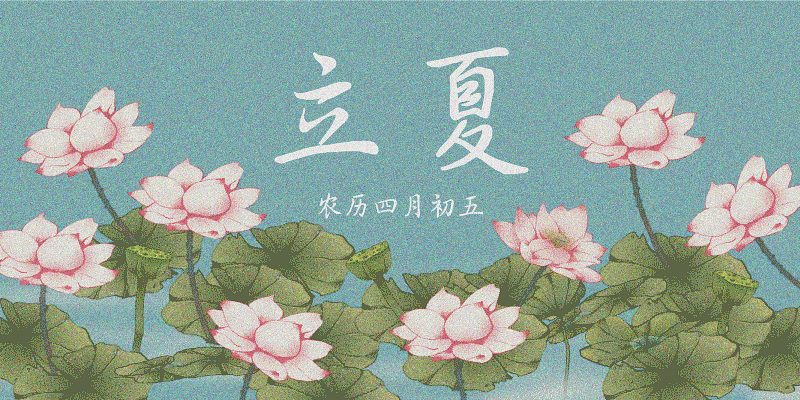
Hellofont ID Zhong Ling Xing Kai Font Free Download
HelloFont ID Zhong Ling Xing Kai Font Free Download
HelloFont ID Zhong Ling Xing Kai Font Free Download is a beautiful Chinese-inspired typeface that combines the elegance of traditional calligraphy with the clean lines of modern typography. Featuring well-balanced strokes and smooth curves, this font is perfect for cultural designs, branding, packaging, editorial content, and event invitations where sophistication and readability are essential.
The HelloFont ID Zhong Ling Xing Kai Font is designed to add a refined, artistic touch to any design. Its graceful letterforms provide a timeless look while offering clarity and legibility, making it ideal for high-end, culturally rich projects. Whether you're designing for a luxury brand, cultural event, or special occasion, this font provides an excellent blend of tradition and contemporary style.